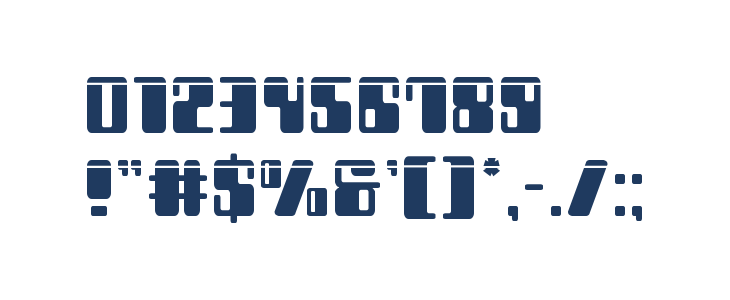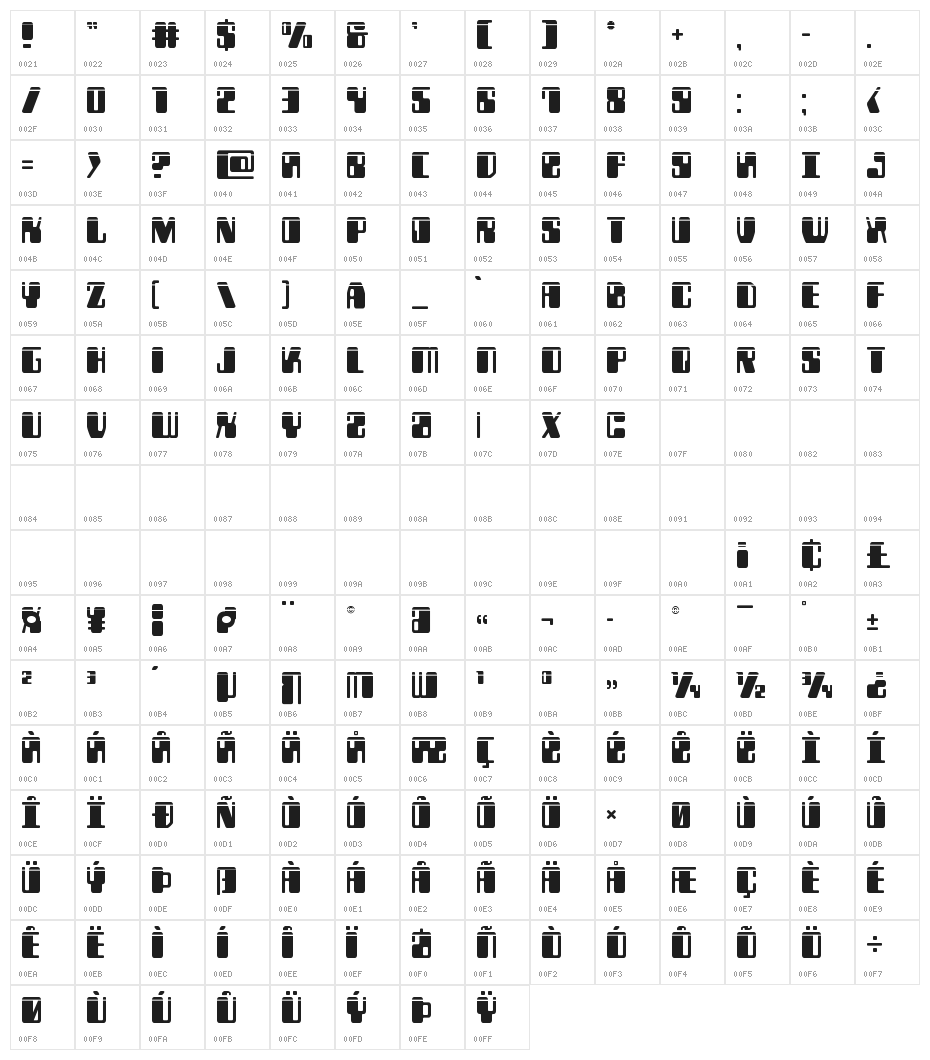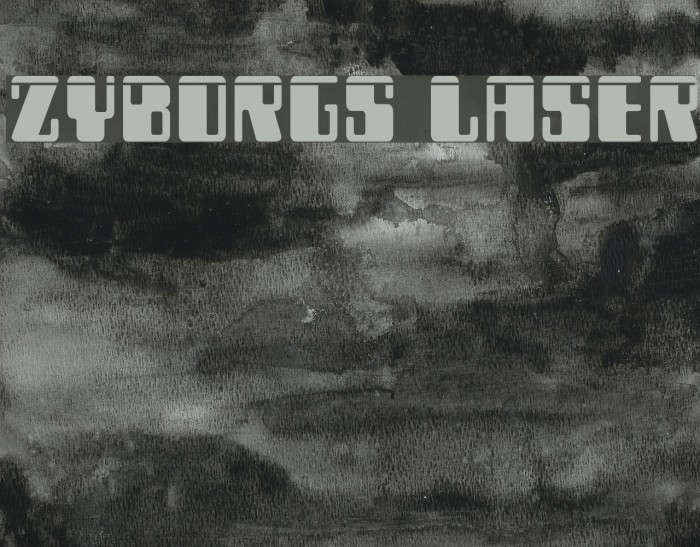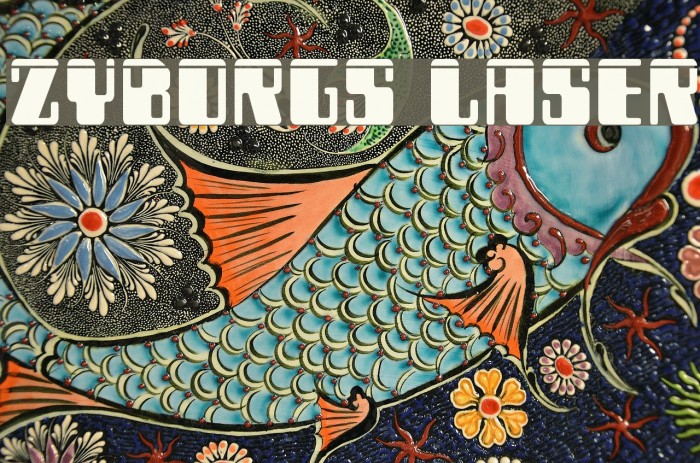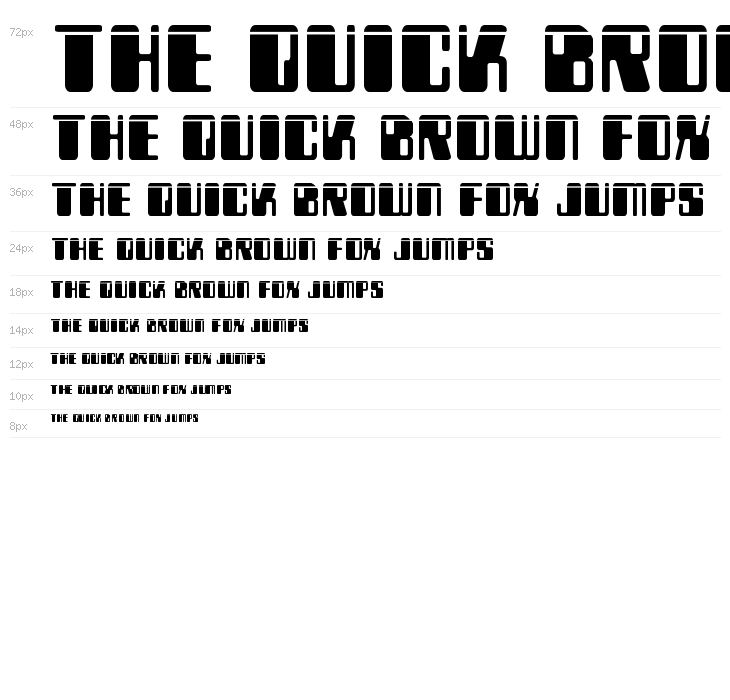
Zyborgs Laser Font
Zyborgs Laser Description
This font features a bold, futuristic design with a strong geometric influence. The characters are constructed with thick, block-like shapes that create a sense of solidity and strength. The use of negative space within each letter adds a unique, modern twist, making the font stand out. The uppercase and lowercase letters maintain a consistent style, with sharp angles and straight lines. Numbers and special characters follow the same design principles, ensuring uniformity across all elements. This font is ideal for projects that require a bold, eye-catching typeface with a modern and technological feel.
| Proposed Projects | Ideal for technology branding, sci-fi movie posters, video game titles, and futuristic-themed designs. |